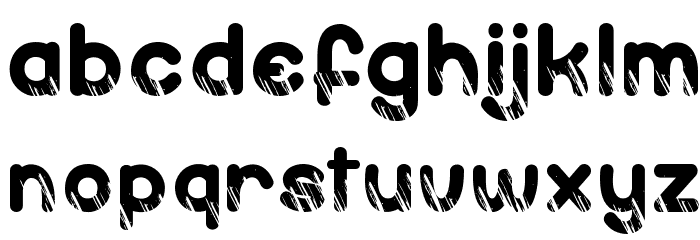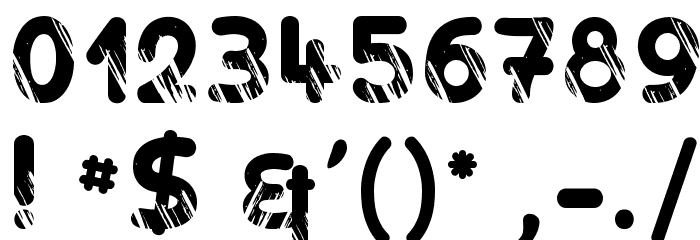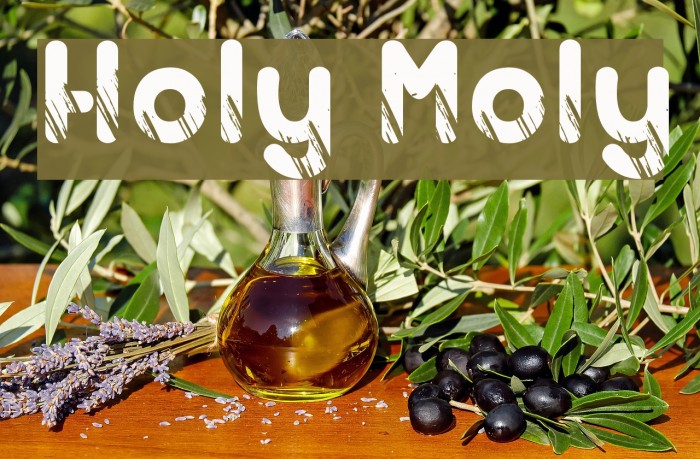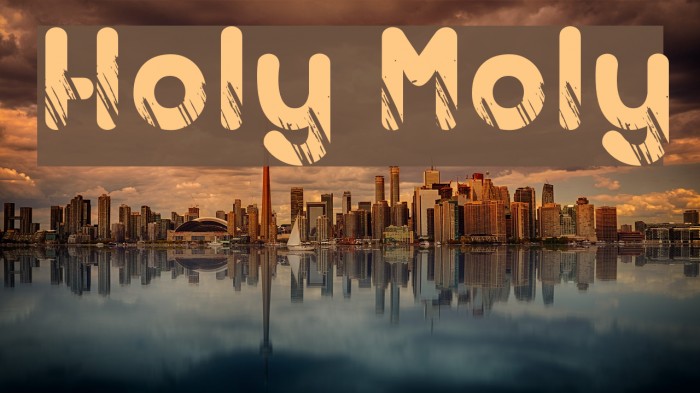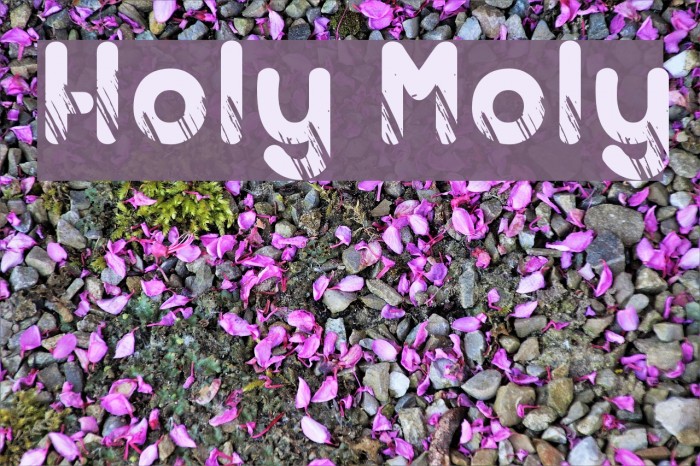
Holy Moly Font
This font features a bold and playful design with a unique distressed texture. Each character is filled with a pattern of diagonal lines that create a sense of movement and energy. The letters are rounded and thick, giving them a friendly and approachable appearance. The font maintains a consistent weight throughout, with a slightly condensed width that enhances its compact and impactful look. The combination of bold strokes and the textured pattern makes it ideal for eye-catching designs.
A bold, textured font with a playful and energetic style.
- Proposed Projects: Great for posters, logos, and branding projects that require a fun and dynamic look.